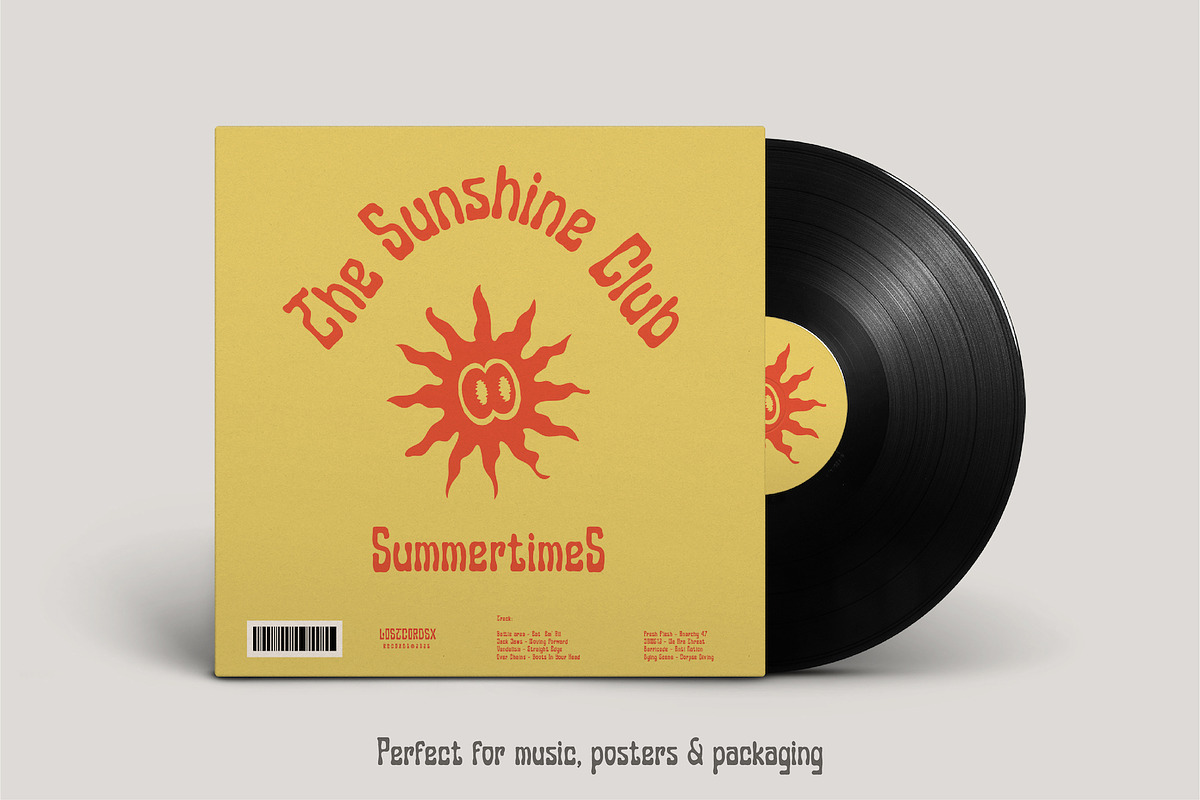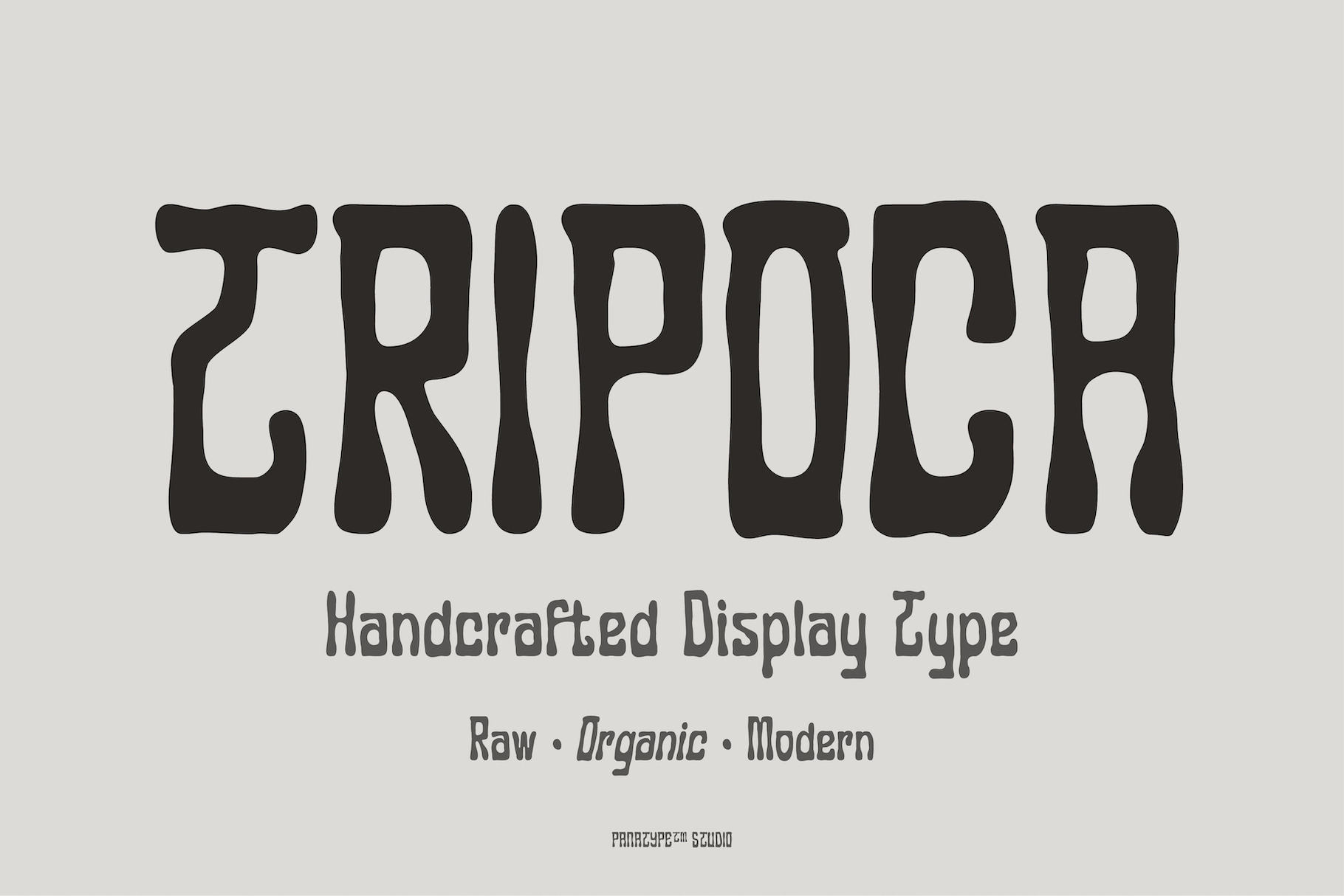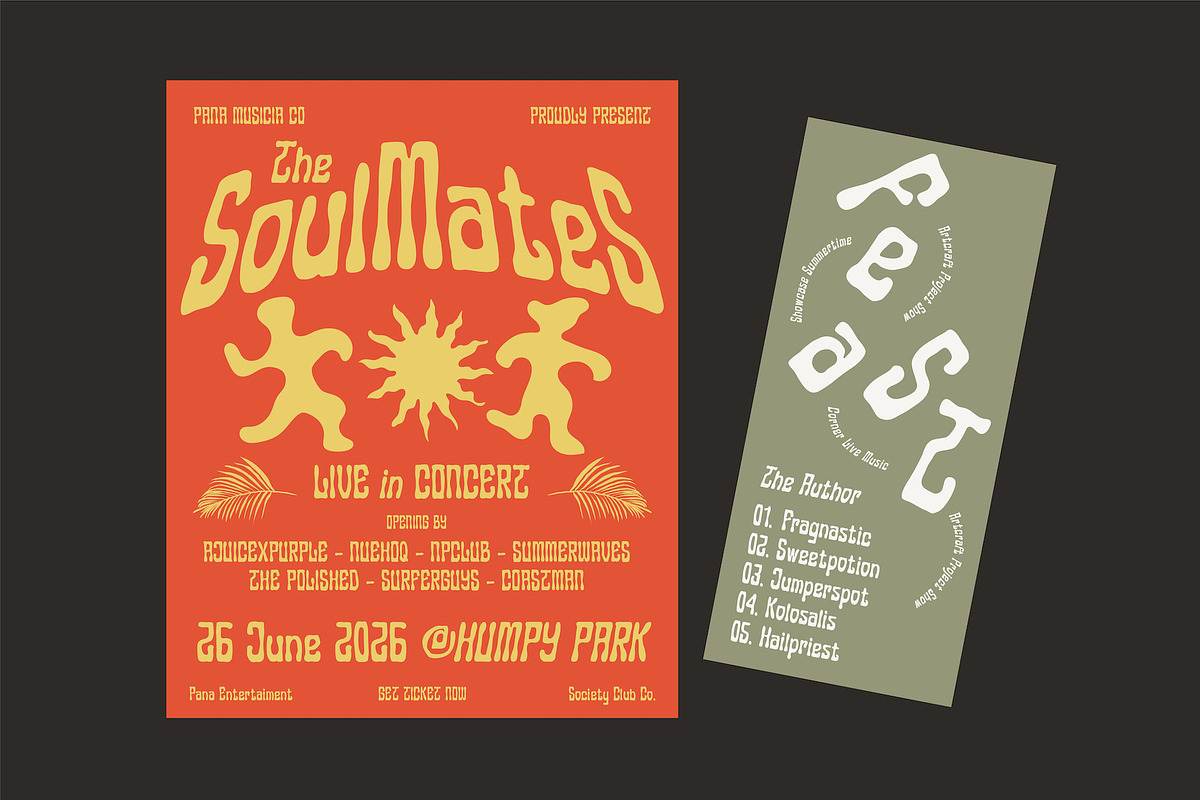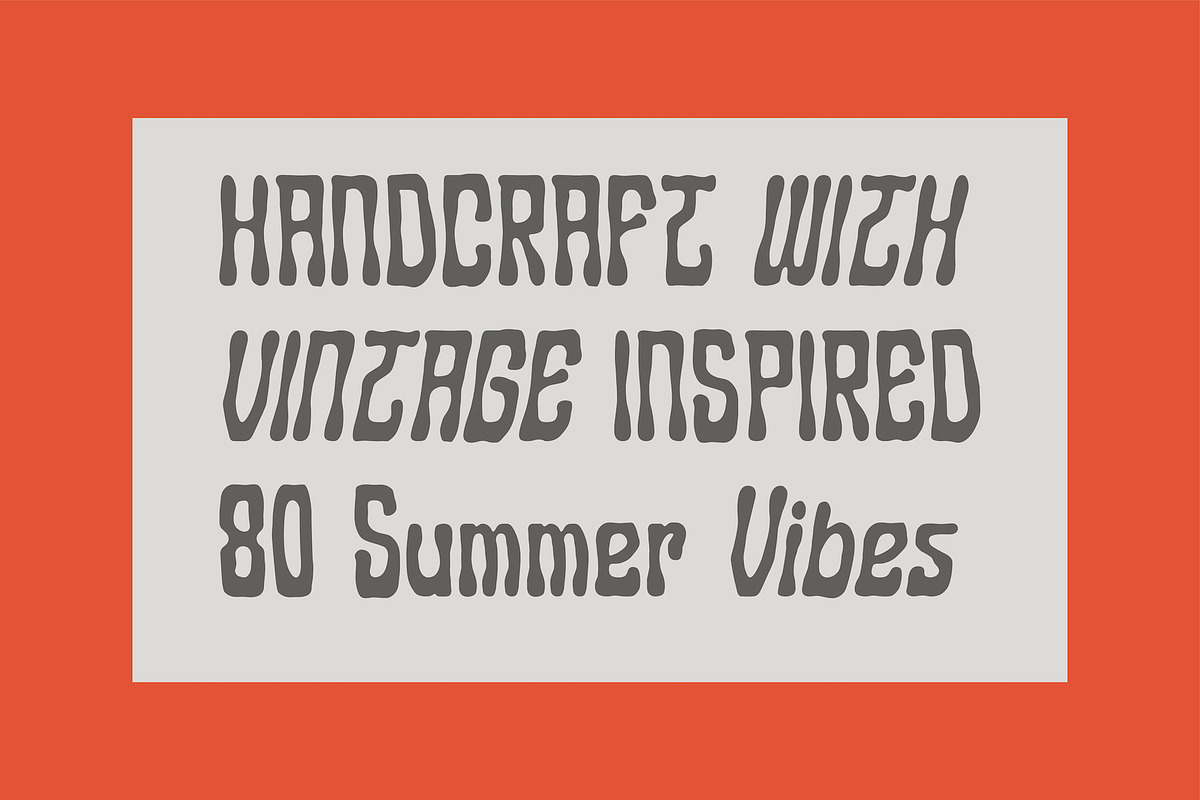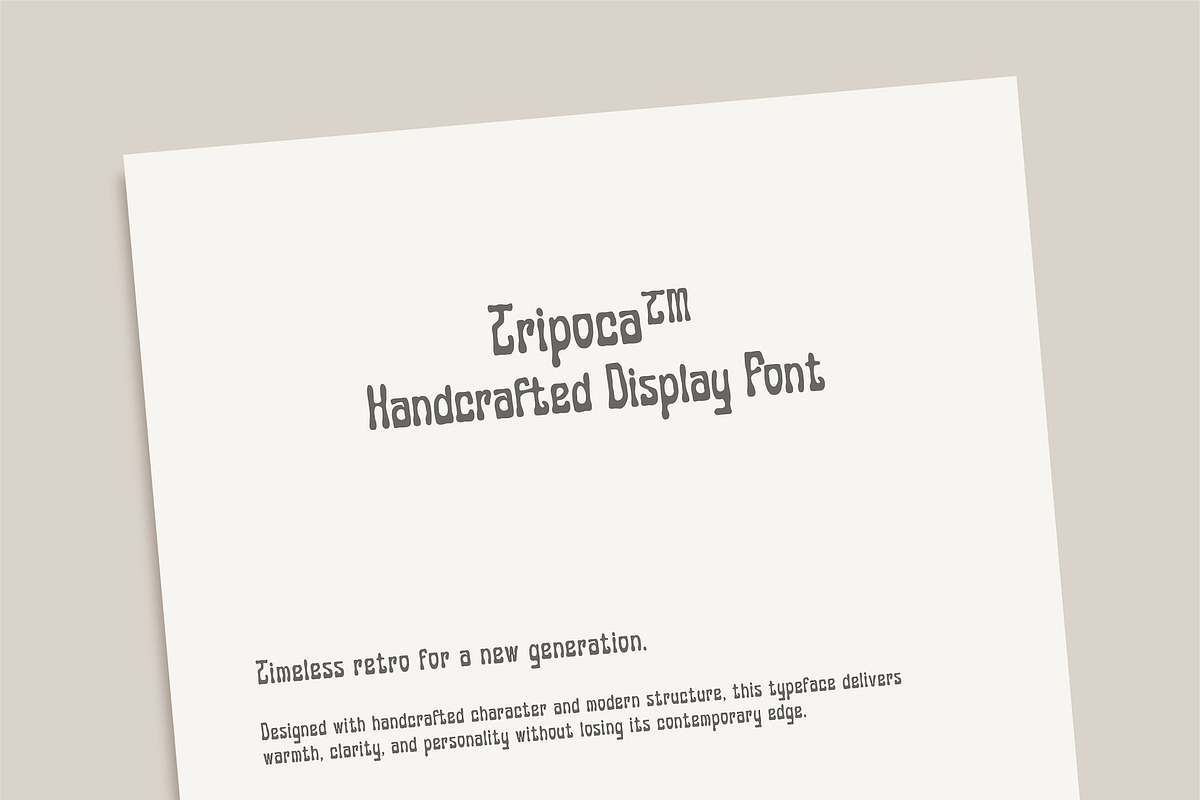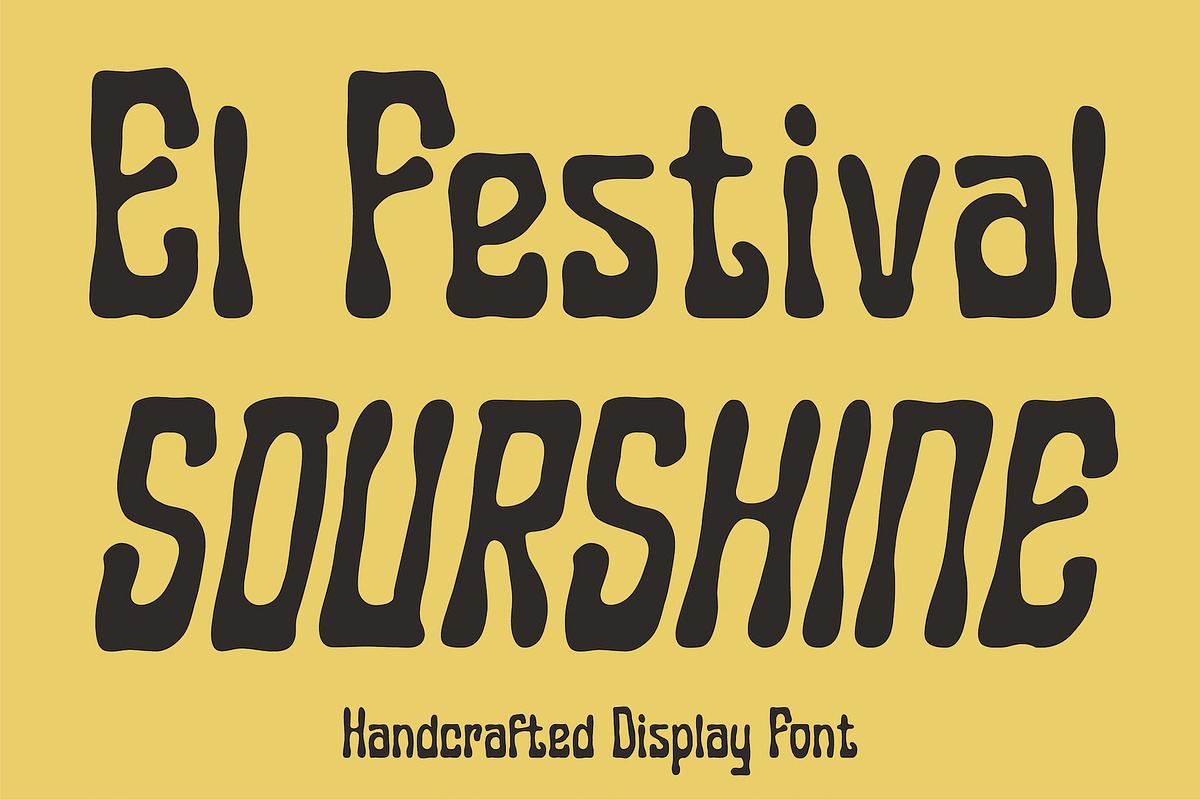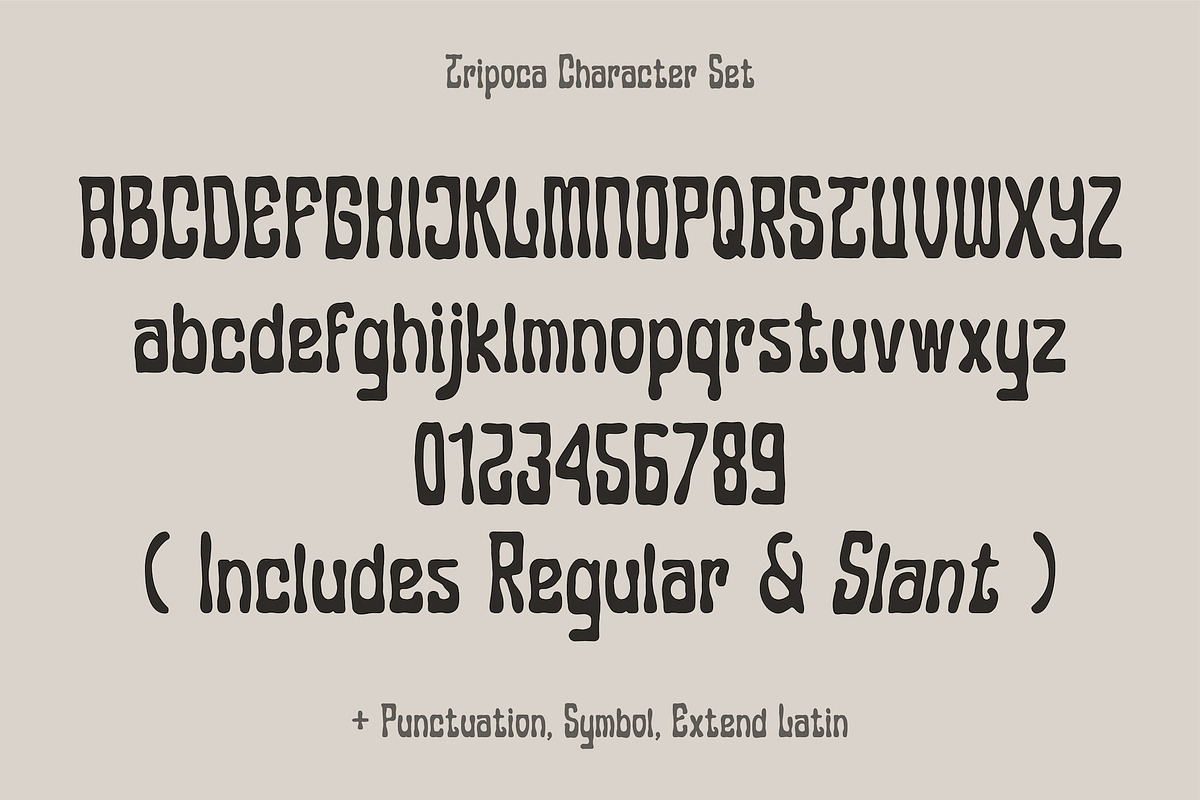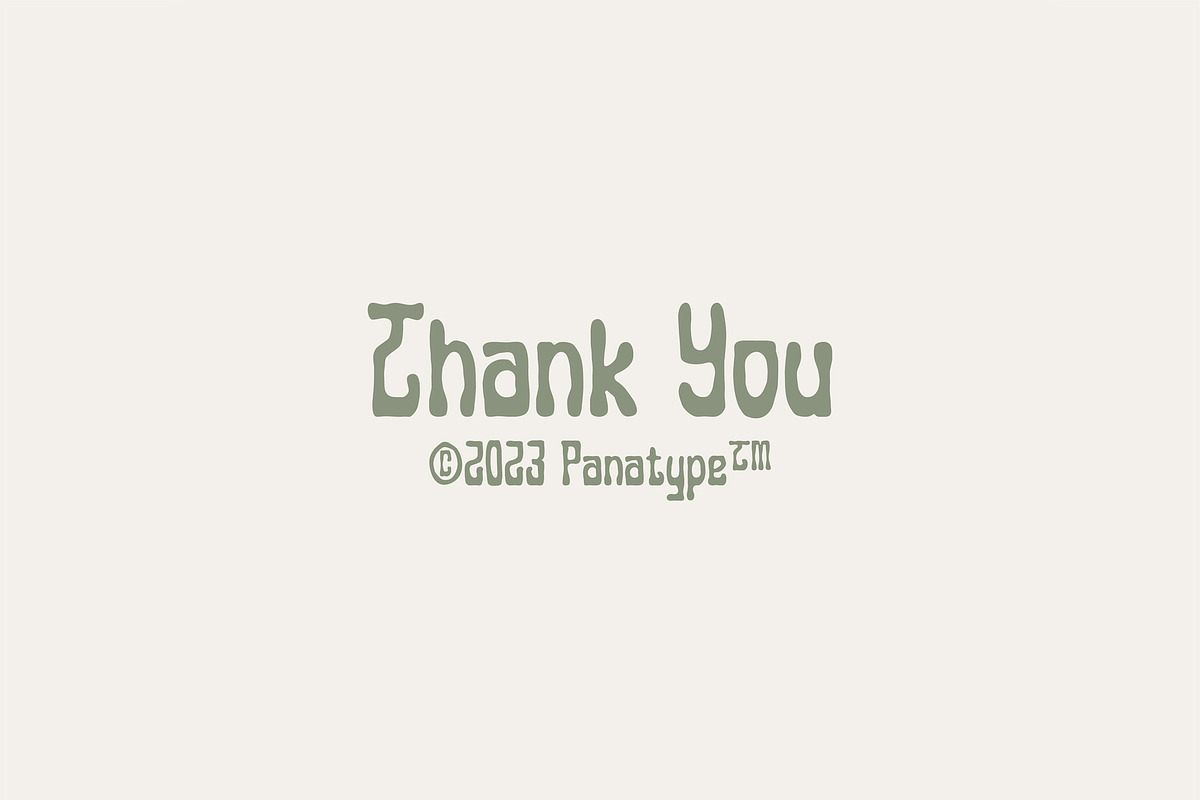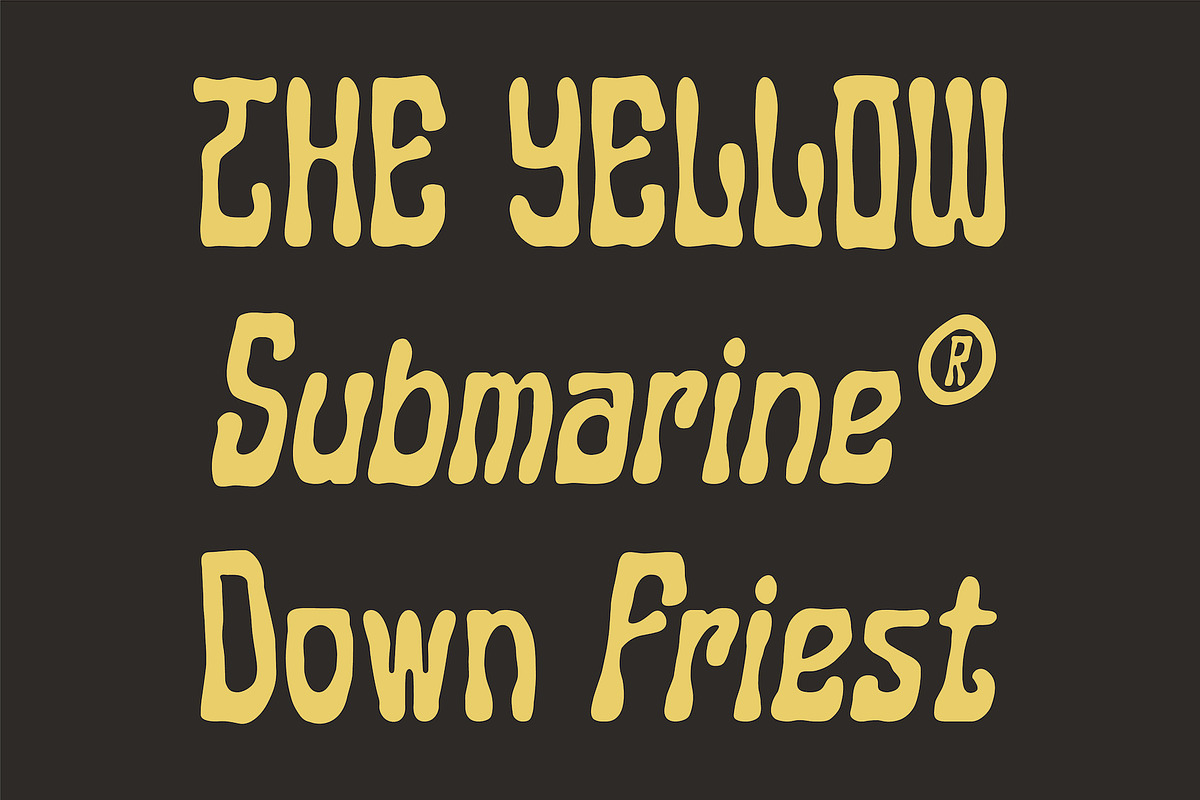
Tripoca – Handcrafted Display Font
Tripoca is a handcrafted display font inspired by timeless retro typography, summer posters, and organic lettering styles. Designed with raw shapes and modern balance, Tripoca delivers strong personality while remaining legible and versatile. Perfect for music artwork, posters, packaging, branding, editorial headlines, and creative projects that need a bold yet warm visual voice. Tripoca includes Regular and Slant styles, complete with punctuation, symbols, and extended Latin support—making it suitable for both experimental and professional design use. Whether you’re creating vintage-inspired designs or modern visuals with a nostalgic touch, Tripoca brings character without losing clarity.
- Handcrafted display font
- Regular & Slant styles included
- Numbers, punctuation & symbols
- Extended Latin support
- Ideal for posters, music artwork, branding & packaging